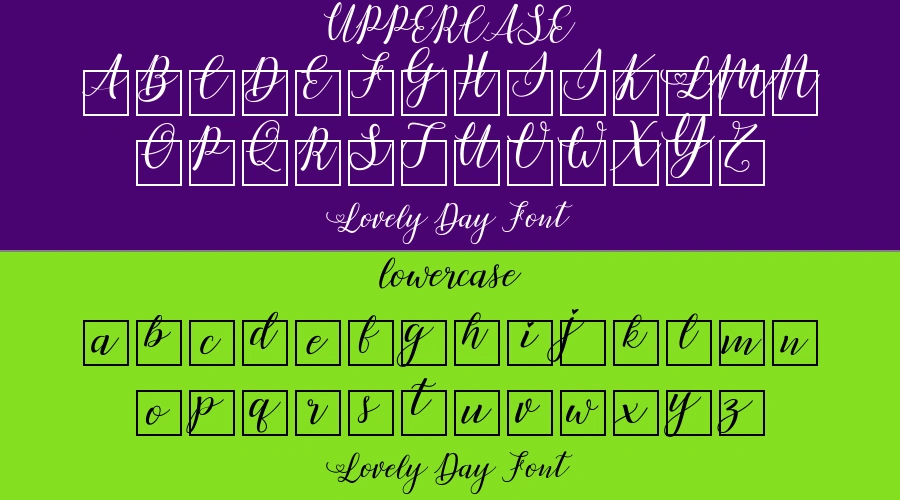
About Lovely Day Font
Lovely Day Font stands out for its distinctive combination of angled joins and recall value. Ideal for branding projects, it provides the reliability and manufacturing quality that professional projects demand. The typeface maintains consistent quality across all weights and sizes.
Key features include refined convex bowls and practical oldstyle figures, enhancing typographic expression. In marketing collateral applications, Lovely Day Font demonstrates exceptional small cap rendering. The contrast level and user perception contribute to its distinctive character and professional appeal.